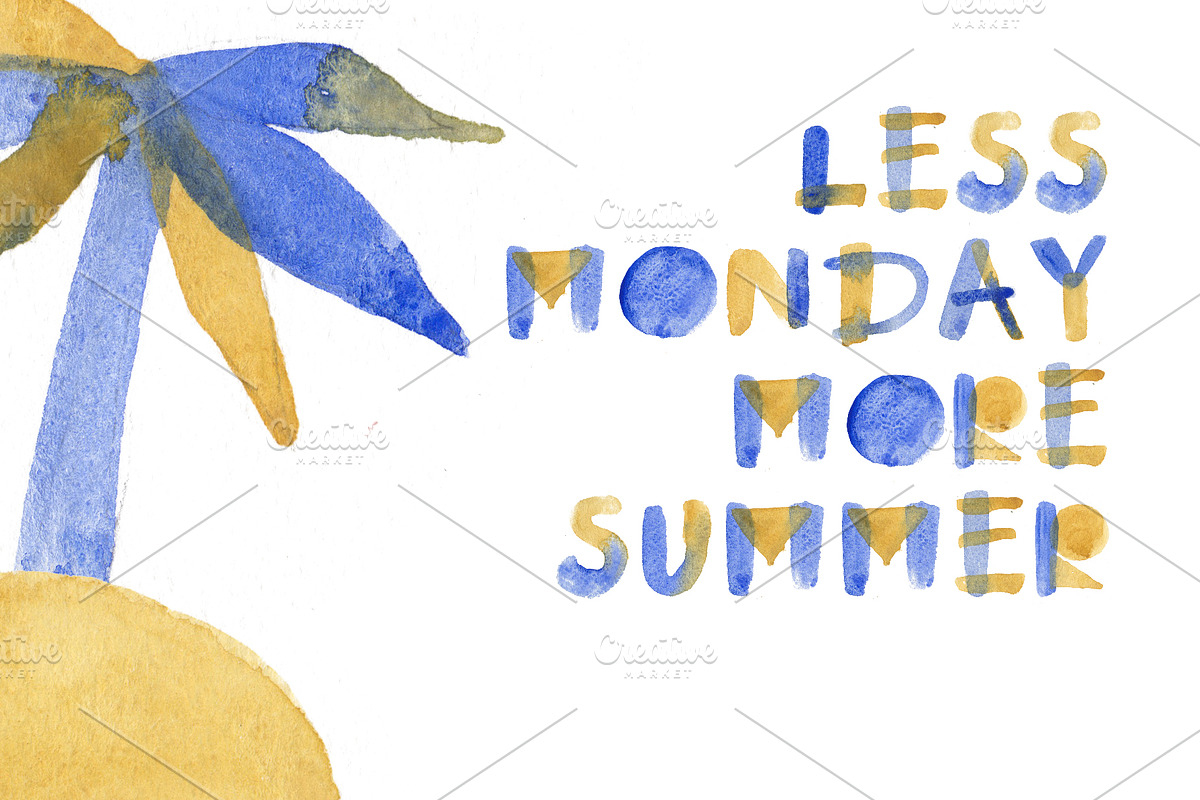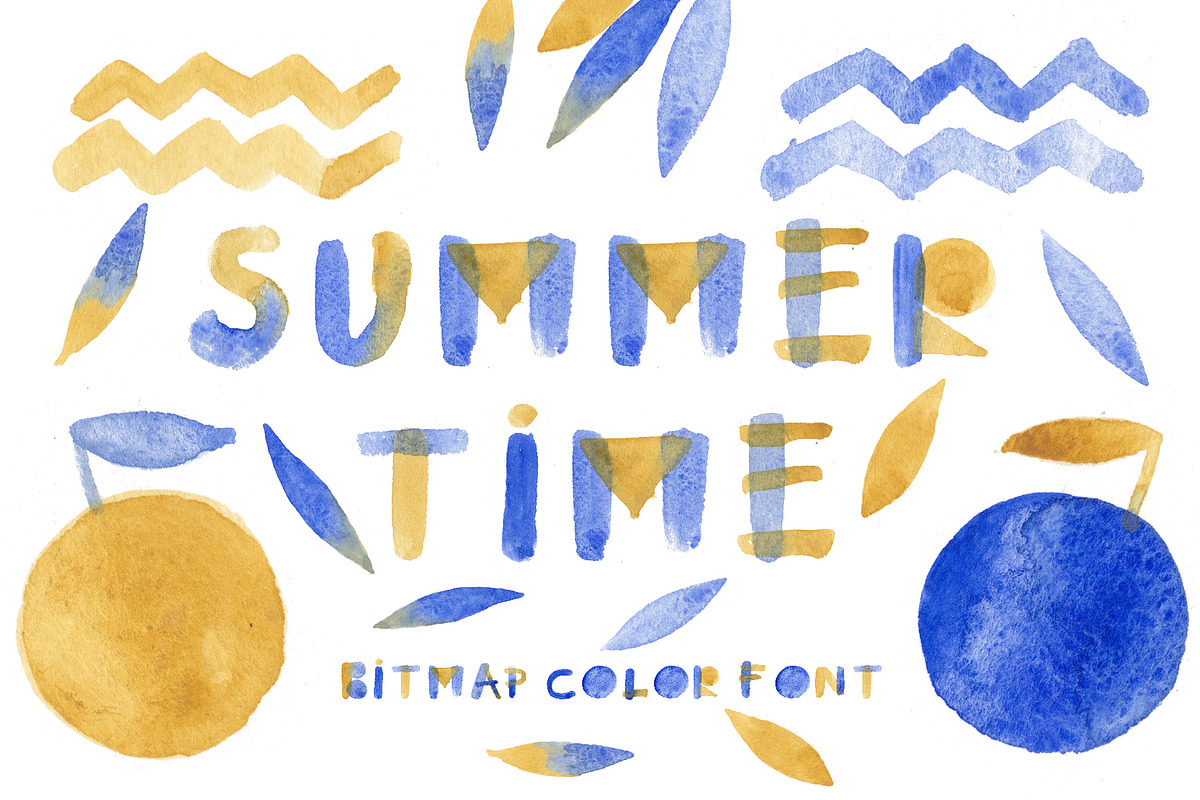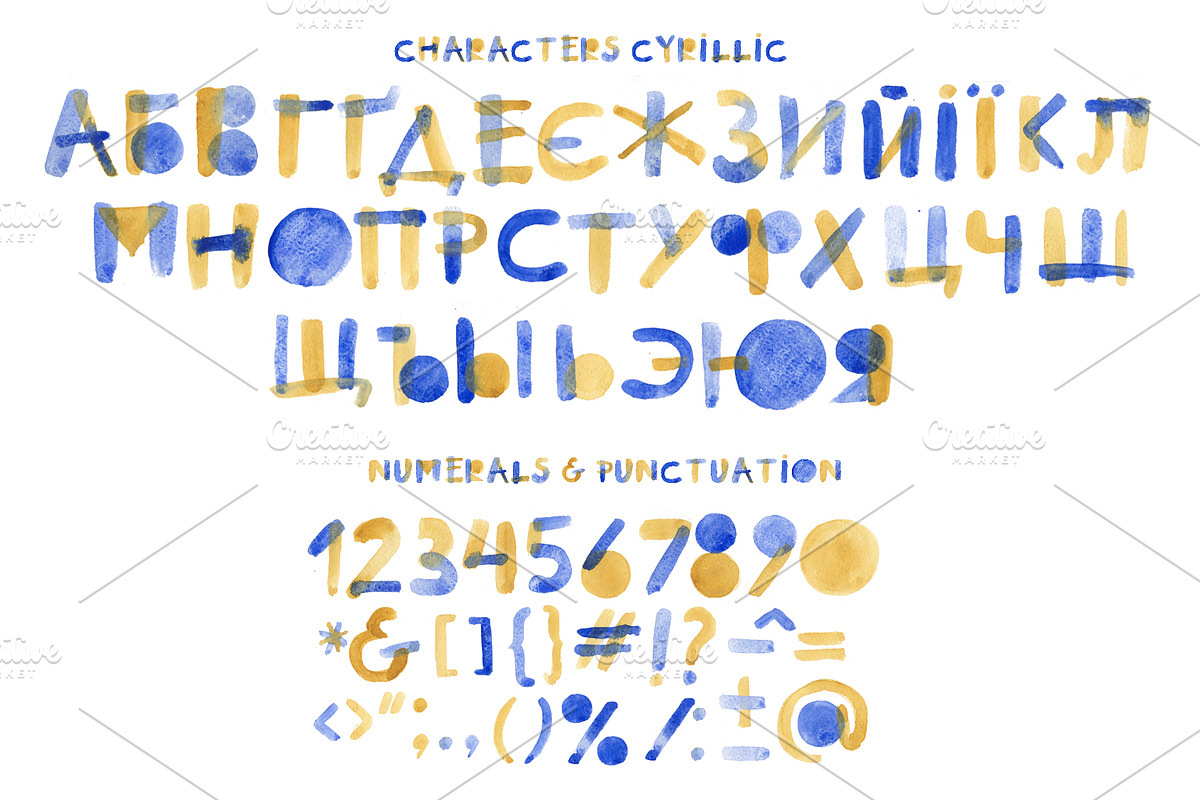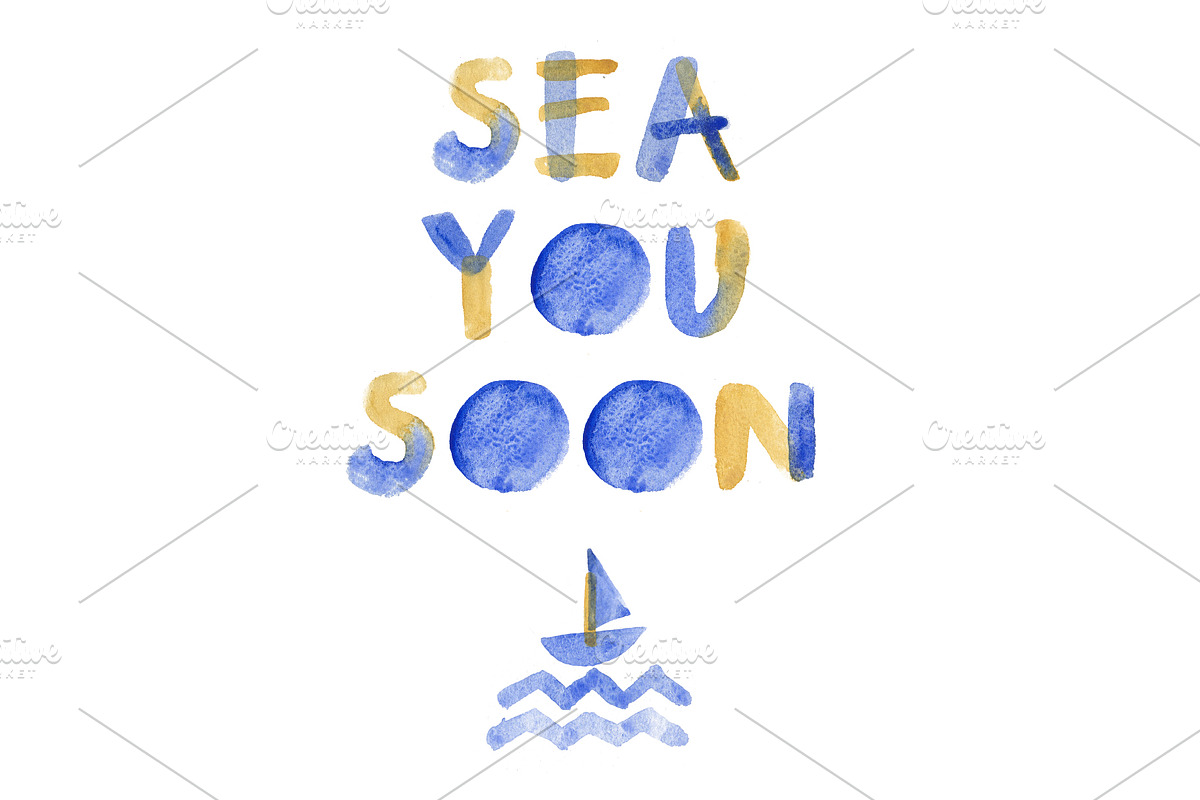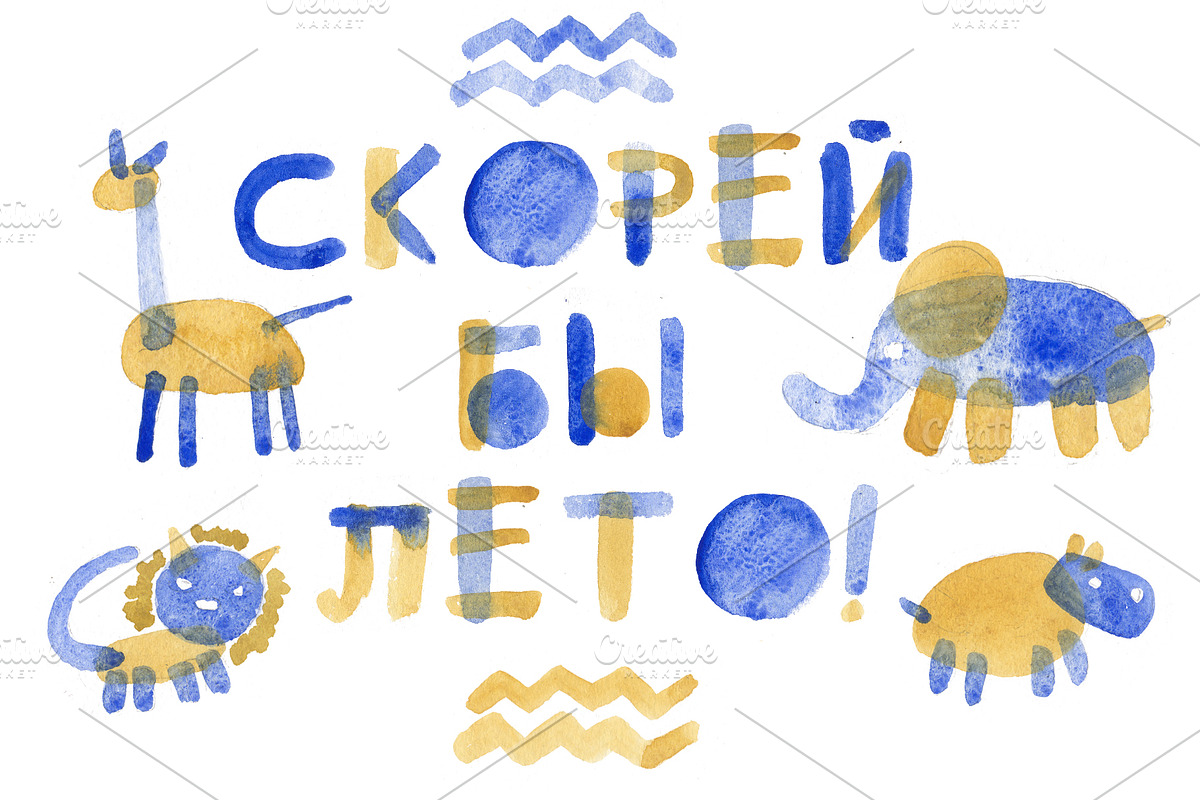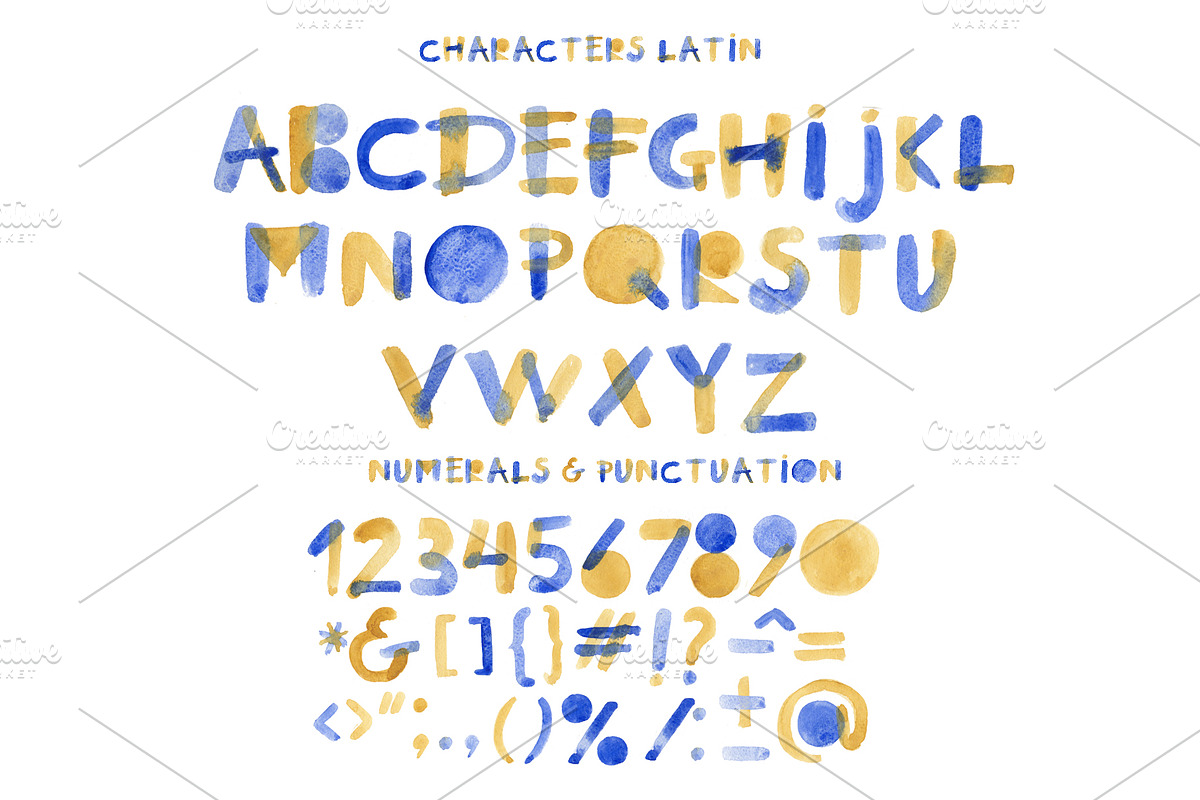
Summertime bitmap color font
I'm happy to present you my new watercolor bitmap OpenType-SVG font – Summertime with Latin and Cyrillic letters! Summertime font contains Latin letter and Cyrillic letter set, numerals and punctuation. This font work nicely for all sorts of things including t-shirt design, typographic art, children products, social media images and so much more!
Font features: Standard characters A-Z, 0-9, and punctuation for the Latin Basic and Western European set, Cyrillic А-Я set, additional letters for the Ukrainian language. Thanks and Enjoy!
- Summertime font contains Latin letter and Cyrillic letter set, numerals and punctuation.